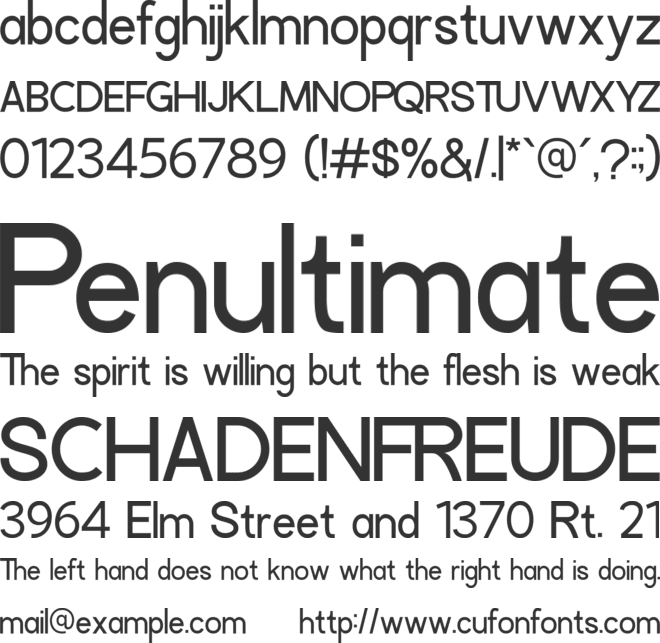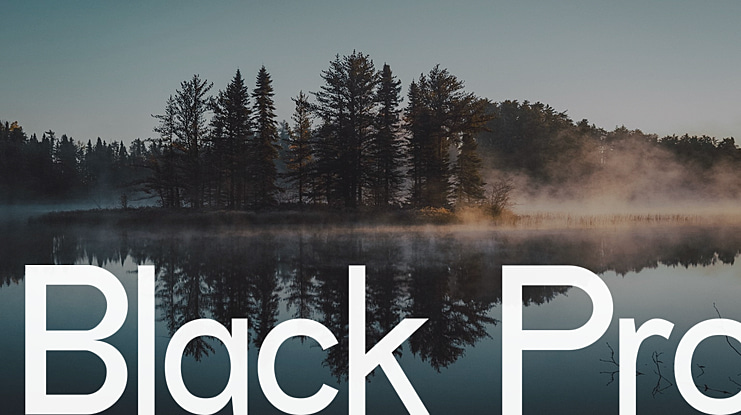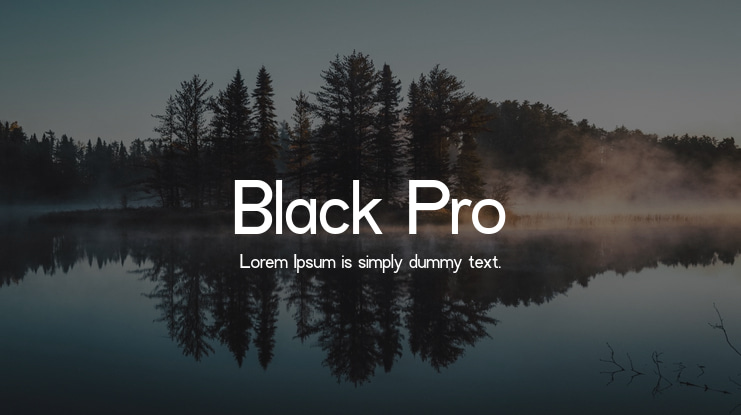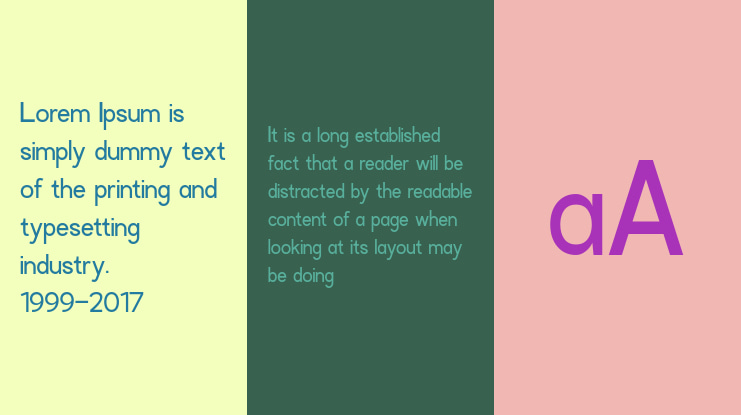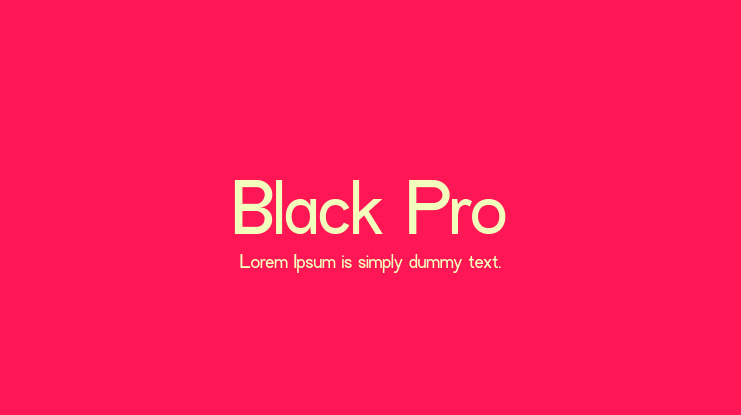
Black Pro Font
It’s a new classic casual sans serif typeface. Black Pro was designed to be an everyday-use geometric typeface with excellent legibility and a neutral tone. This minimalist and clean vibe can easily apply to your favorite designs such as book covers, magazines, social media posts, invitations, and so much more!